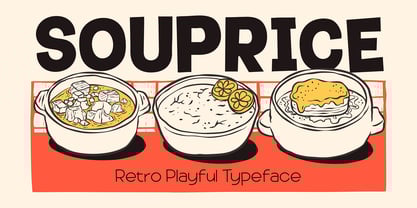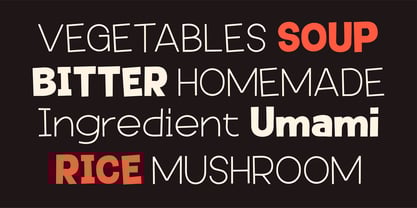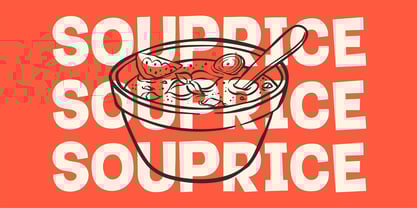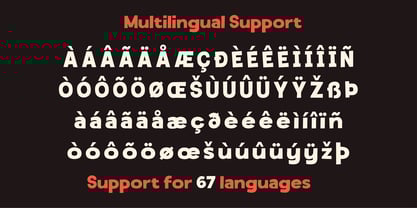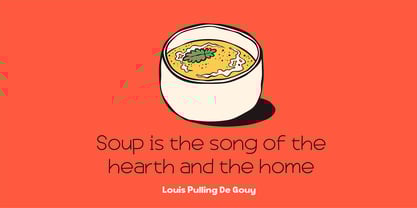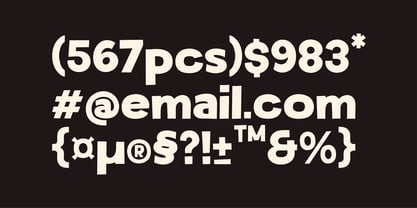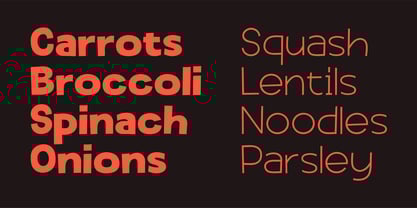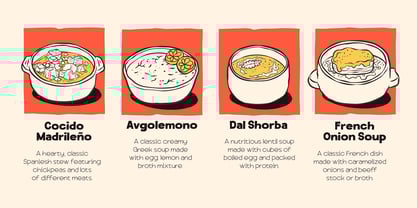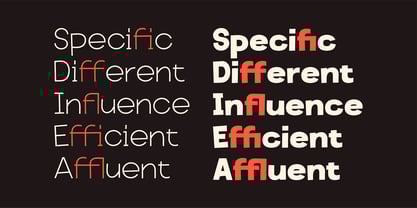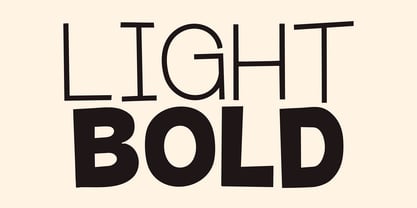
Souprice
by Graptail
The Souprice Font Family was designed by Teuku Deky Firnanda and published by Graptail. Souprice contains 2 styles and family package options. More about this family
Souprice – Retro Playful Typeface
Souprice is a retro playful typeface that brings a nostalgic yet fun personality to your designs. Hand-drawn with a touch of organic charm, this font comes in two striking styles: Bold and Light. Whether you're designing posters, packaging, or playful branding, Souprice adds a warm and lively feel with its unique hand-crafted look. Perfect for those who want a touch of retro vibes with a modern twist!
Designers: Teuku Deky Firnanda
Current Foundry: Graptail